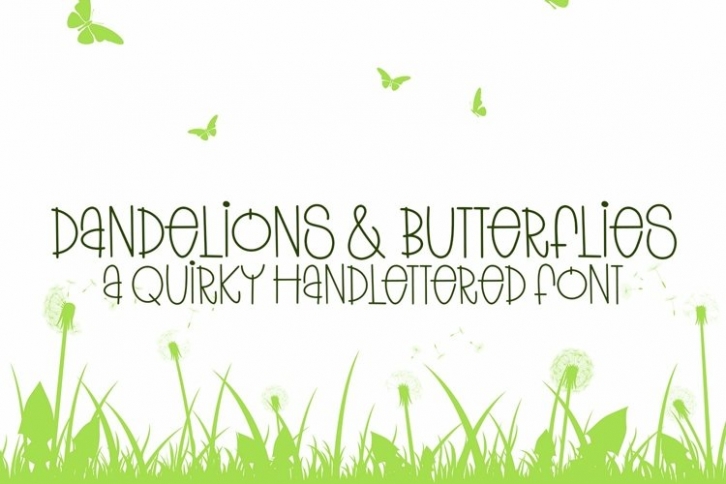
Web Dandelions And Butterflies is a gorgeous font that was realeased on April 29, 2021. The font can be used in many style contexts and design environments. Perfect for invitations, magazines, websites, logos, and more! It was designed by plusstore and the file size is 6.36 MB. Thanks for checking out this font!